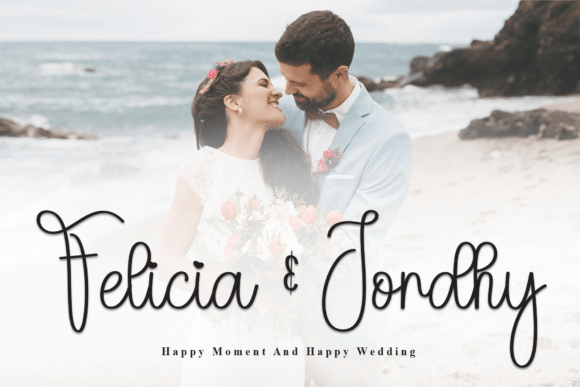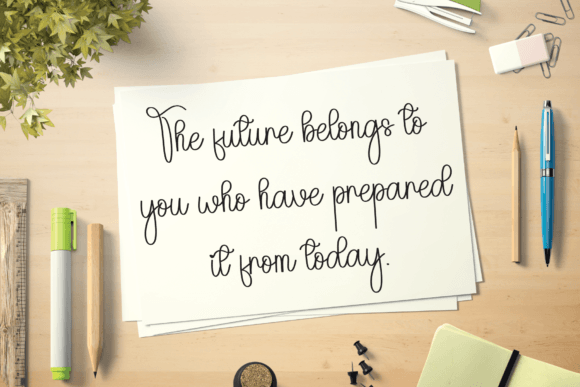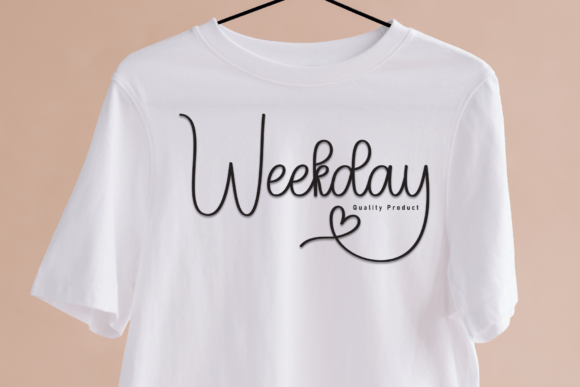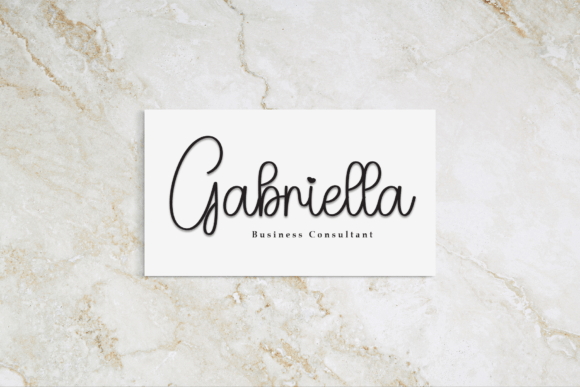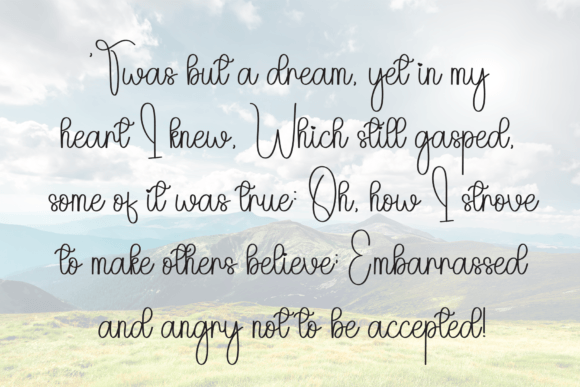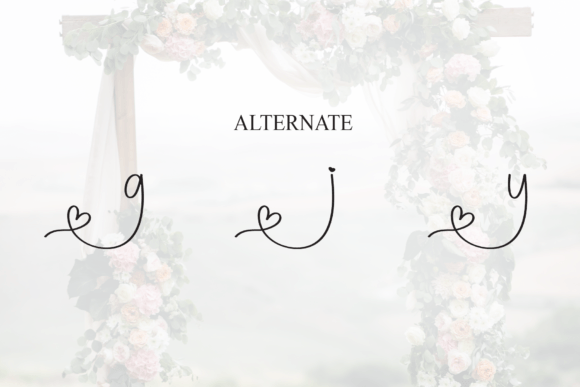
Introducing the Happy Wedding Font: A Playful and Charming Addition to Your Designs
Are you looking for a font that exudes joy, playfulness, and whimsy? Look no further than the ‘Happy Wedding’ font, a delightful handwritten font that is sure to bring a smile to your face. This beautiful font is overflowing with playful charm, making it perfect for a variety of design projects, from wedding invitations to heartfelt cards and beyond.
The Perfect Font for Wedding Invitations and More
The ‘Happy Wedding’ font is specifically designed to capture the essence of joy and celebration, making it an ideal choice for wedding invitations, save-the-date cards, and other wedding-related design projects. Its playful and whimsical nature adds a touch of personality to your designs, setting them apart from more traditional and formal fonts.
But the ‘Happy Wedding’ font isn’t just limited to wedding designs. Its versatility and charm make it suitable for a wide range of projects, including:
- Birthday cards and invitations
- Anniversary celebrations
- Party invitations and decorations
What Makes the Happy Wedding Font So Special?
So, what sets the ‘Happy Wedding’ font apart from other fonts? Here are just a few of its unique features:
- Handwritten with love: Each letter and stroke is carefully crafted to give the font a personal and human touch.
- Playful and whimsical: The font’s playful nature adds a dash of fun and personality to your designs.
- Highly legible: Despite its playful nature, the font remains highly legible, making it easy to read and understand.
- Versatile: The ‘Happy Wedding’ font can be used for a wide range of design projects, from digital to print.
How to Use the Happy Wedding Font in Your Designs
Using the ‘Happy Wedding’ font in your designs is easy. Here are a few tips to get you started:
- Pair it with complementary fonts: Combine the ‘Happy Wedding’ font with other fonts to create a unique and visually appealing typography.
- Experiment with colors and textures: Add depth and interest to your designs by experimenting with different colors and textures.
- Use it for headings and titles: The ‘Happy Wedding’ font is perfect for headings and titles, adding a touch of personality and whimsy to your designs.
In conclusion, the ‘Happy Wedding’ font is a delightful and charming addition to any design project. Its playful and whimsical nature makes it perfect for a wide range of designs, from wedding invitations to social media graphics. With its highly legible and versatile nature, this font is sure to bring joy and personality to your creations. So why not give it a try and see how it can add a touch of happiness to your designs?